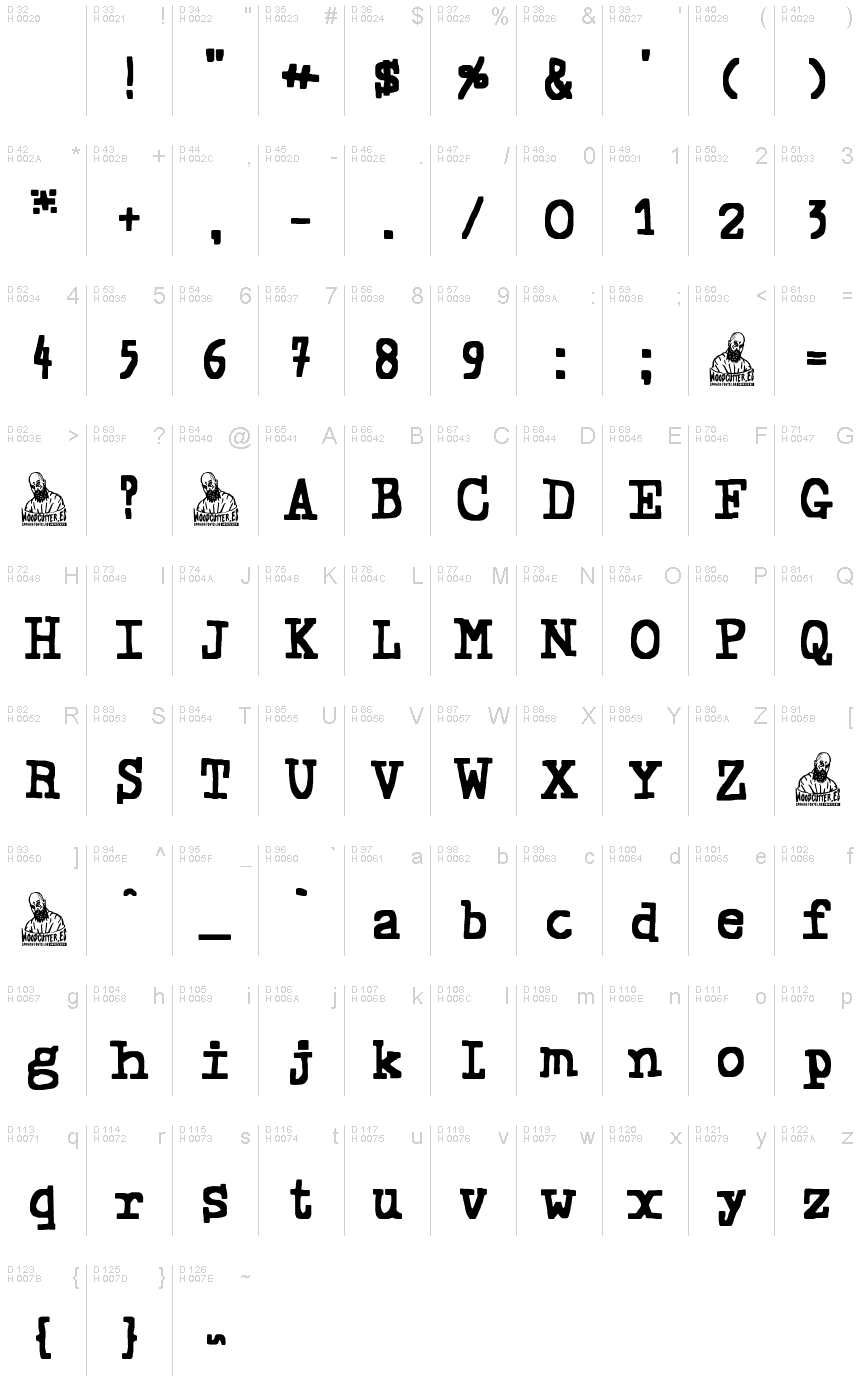
Hedonismo En La Oficina
Hedonismo En La Oficina, designed by Woodcutter, is a playful and vibrant display font that adds a touch of excitement to any project. With its whimsical cartoon style, this font is suitable for a wide range of creative endeavors. From children's book illustrations and animated videos to party invitations and logo designs, Hedonismo En La Oficina brings an element of fun and joy to every piece. Its bold and expressive characters make it perfect for eye-catching headlines or attention-grabbing branding campaigns. Let your imagination run wild with this charming font!
Hedonismo En La Oficina.